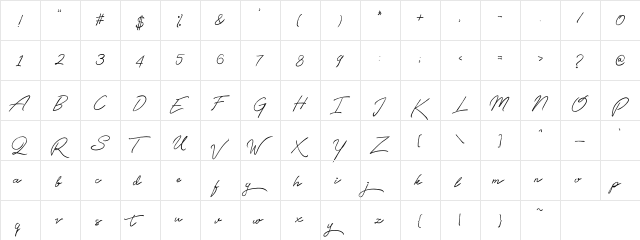
Qetey Regular Font Preview
Qetey Regular
Qetey Regular Font Details
Design Context for Qetey Typeface
Qetey offers clean, dependable letterforms without strong stylistic allegiance, making it a practical choice for designers who need flexibility.
Pro Tip: Pair Qetey with a font of contrasting weight or personality to build a more expressive typographic hierarchy.